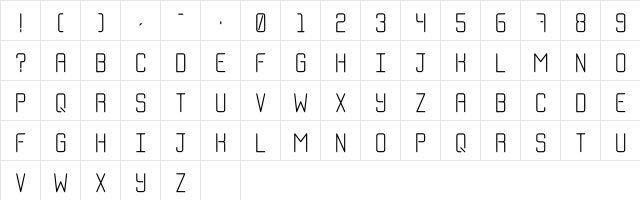
Skinny Headline Regular
Design Context for Skinny Headline Typeface
Skinny Headline offers clean, dependable letterforms without strong stylistic allegiance, making it a practical choice for designers who need flexibility.